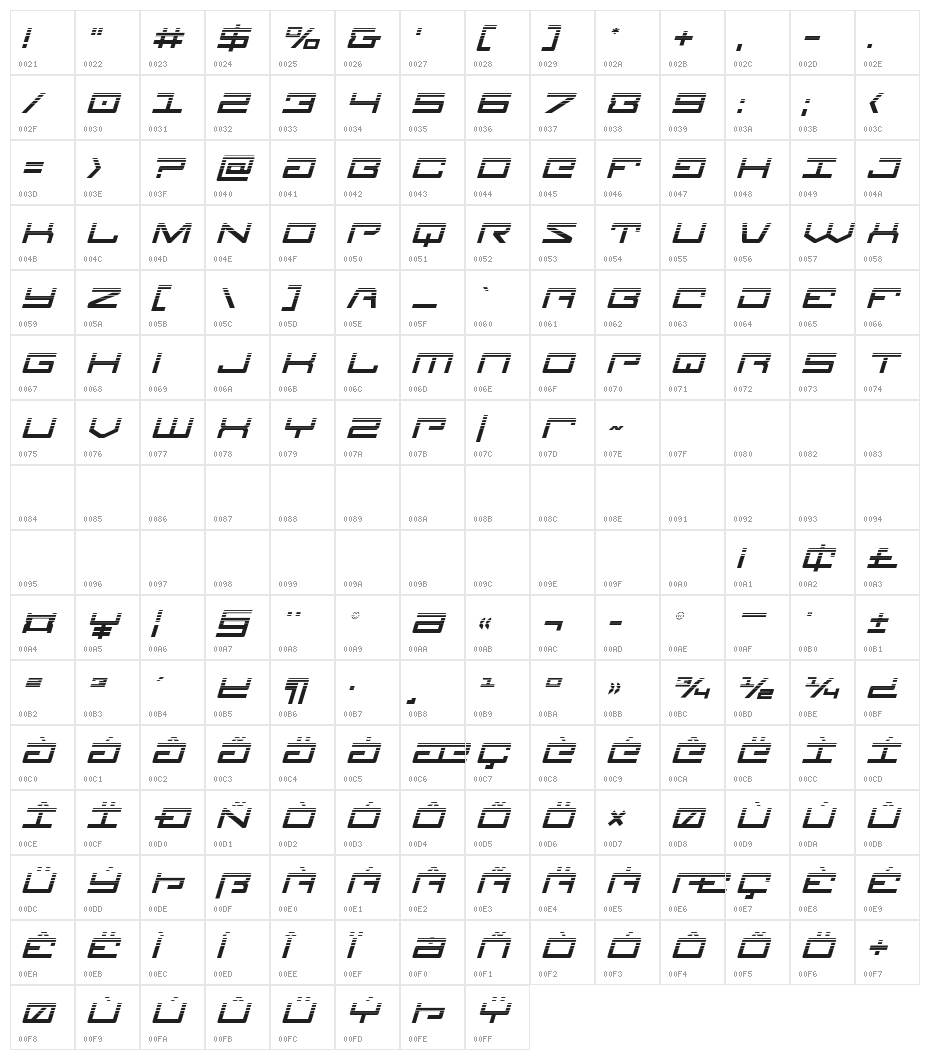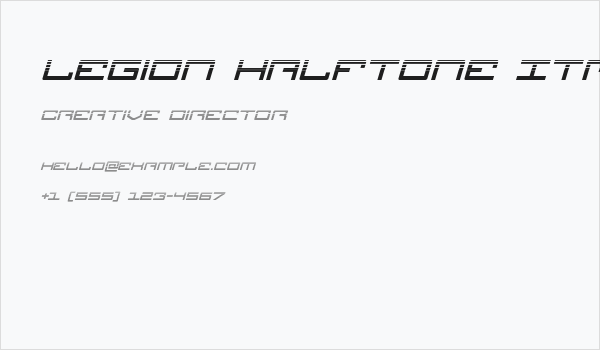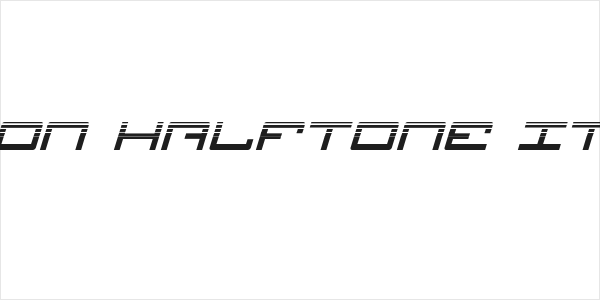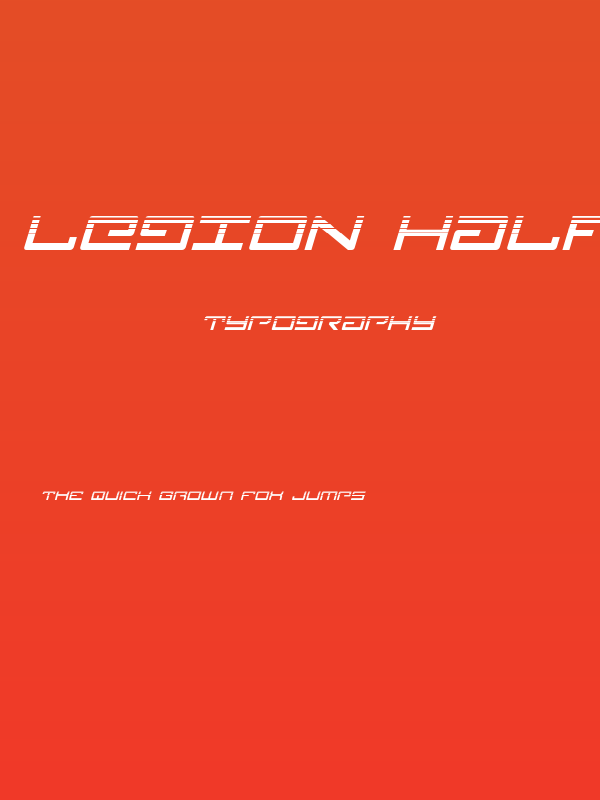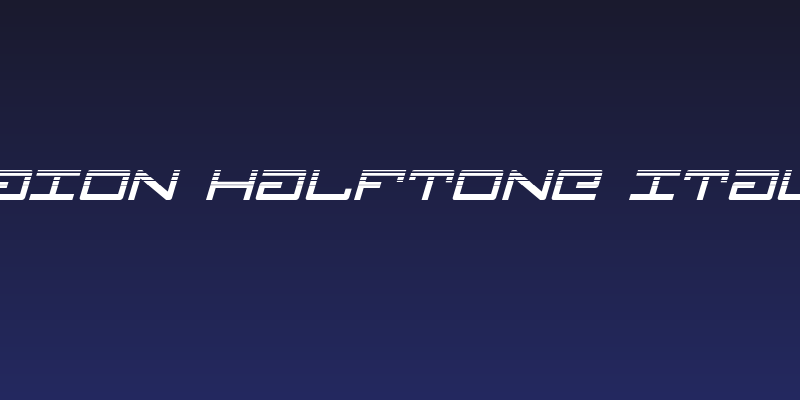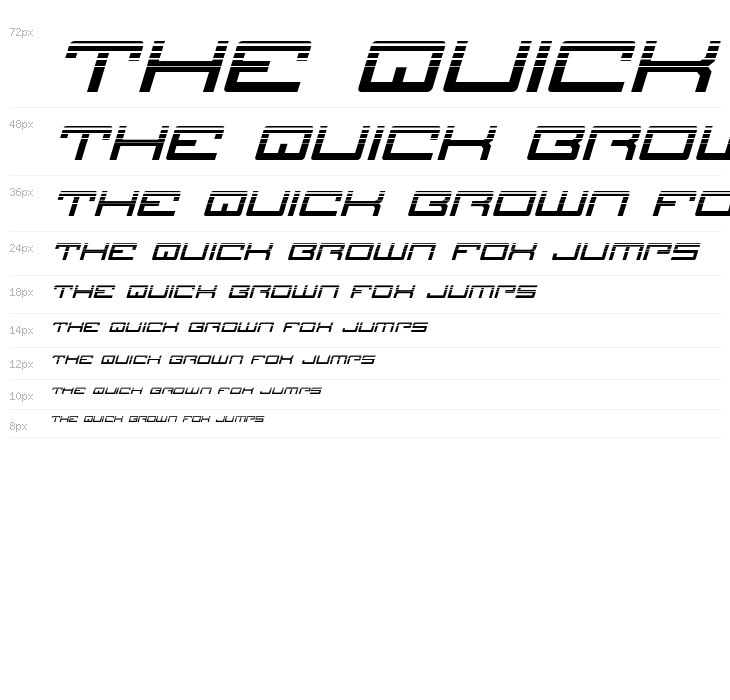
Legion Halftone Italic Font
Legion Halftone Italic Description
This font features a dynamic and futuristic design with a halftone effect that gives it a unique, digital appearance. The italicized letters add a sense of motion and speed, making it ideal for projects that require a modern and edgy look. The characters are composed of segmented lines, creating a sense of depth and texture. This style is particularly effective for attention-grabbing headlines or logos that need to stand out. The font maintains a consistent stroke width, contributing to its bold and impactful presence.
| Proposed Projects | Ideal for tech-related branding, video game titles, sci-fi movie posters, and modern advertising campaigns. |